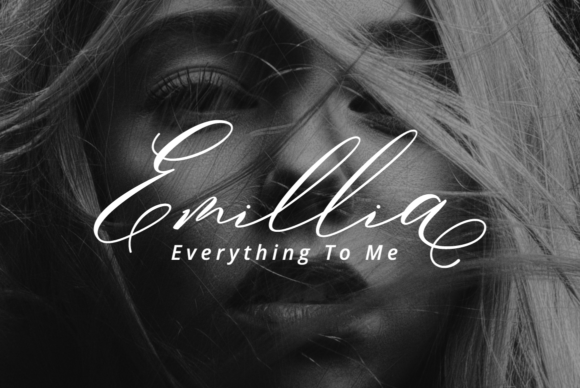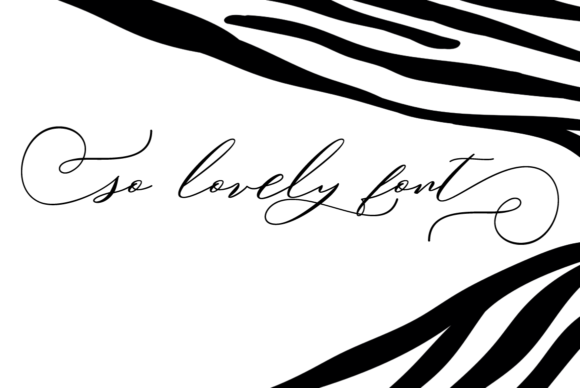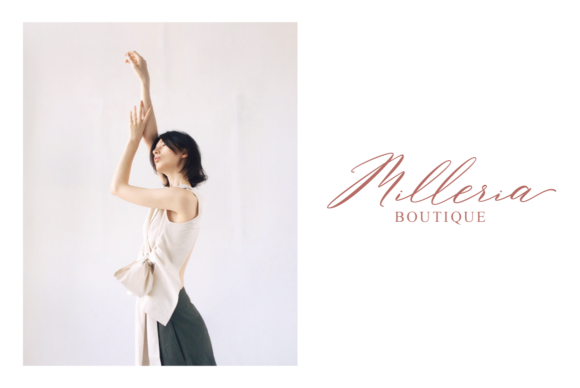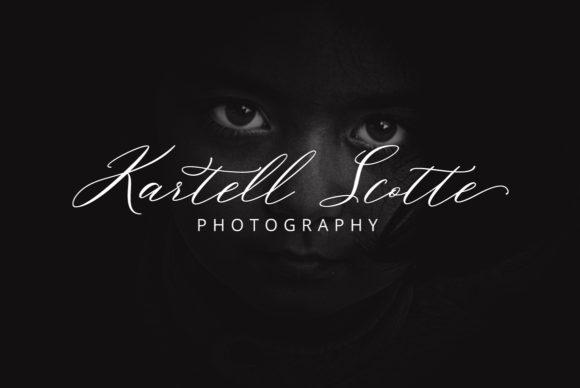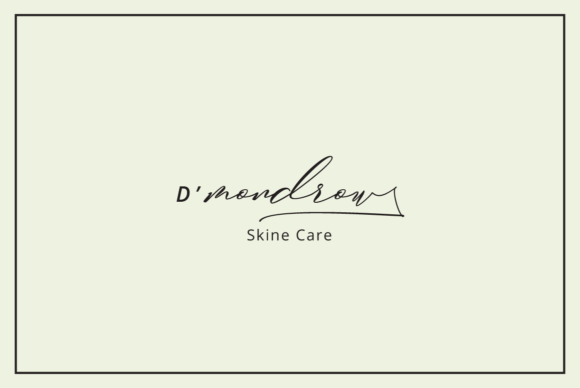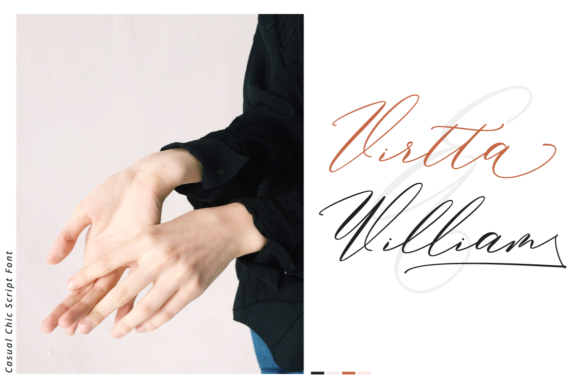
Introduction to Miolleta Script Font
The Miolleta is an unique blend of a classic and modern font.
It has an imperfect style with ups and downs and includes a dancing baseline Its clean and simple style is perfect for weddings, invitations, escort cards, table numbers, header menus, display, logos, slider blog, custom addresses, stamps, packaging, greeting cards, and much more.